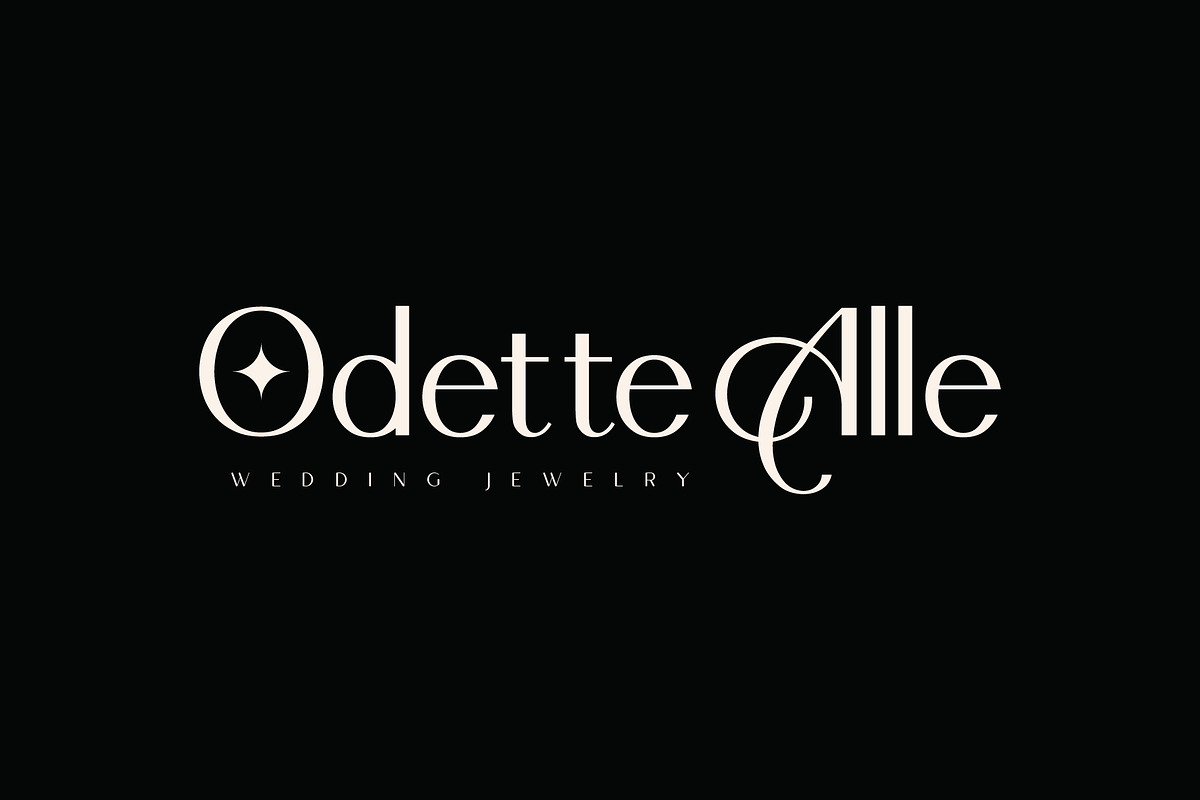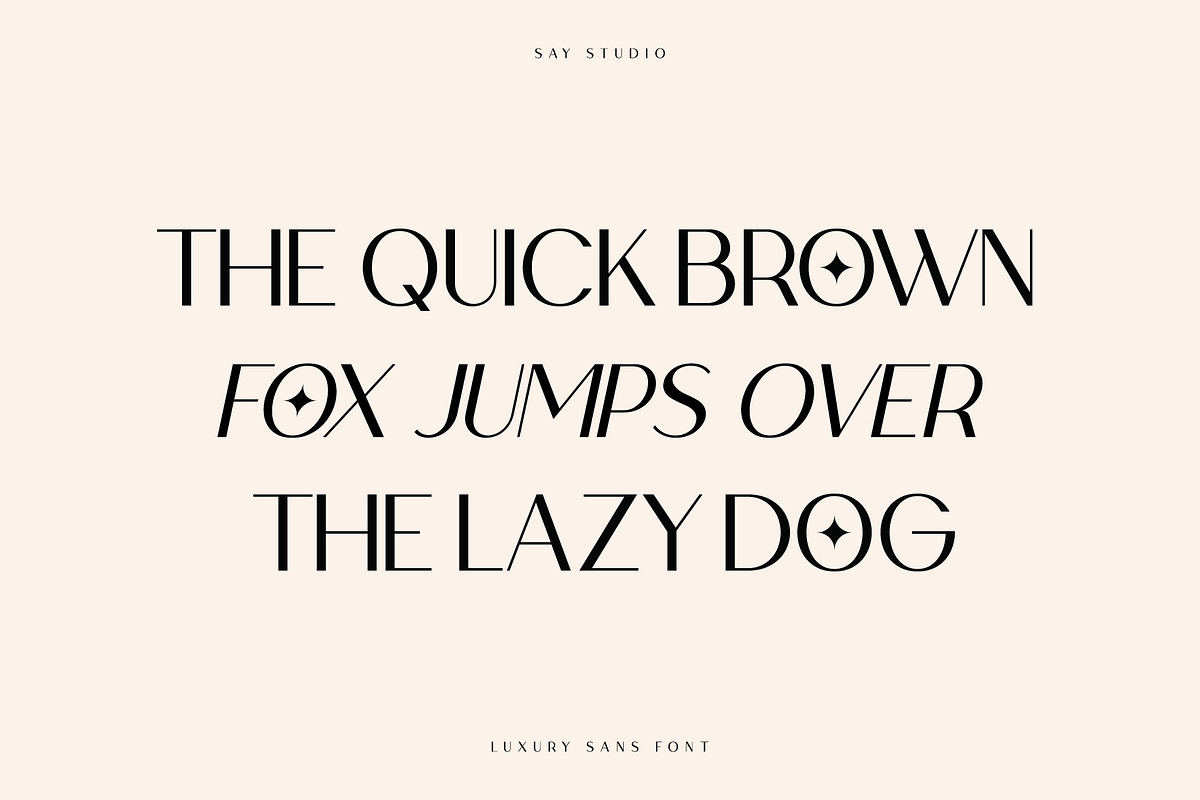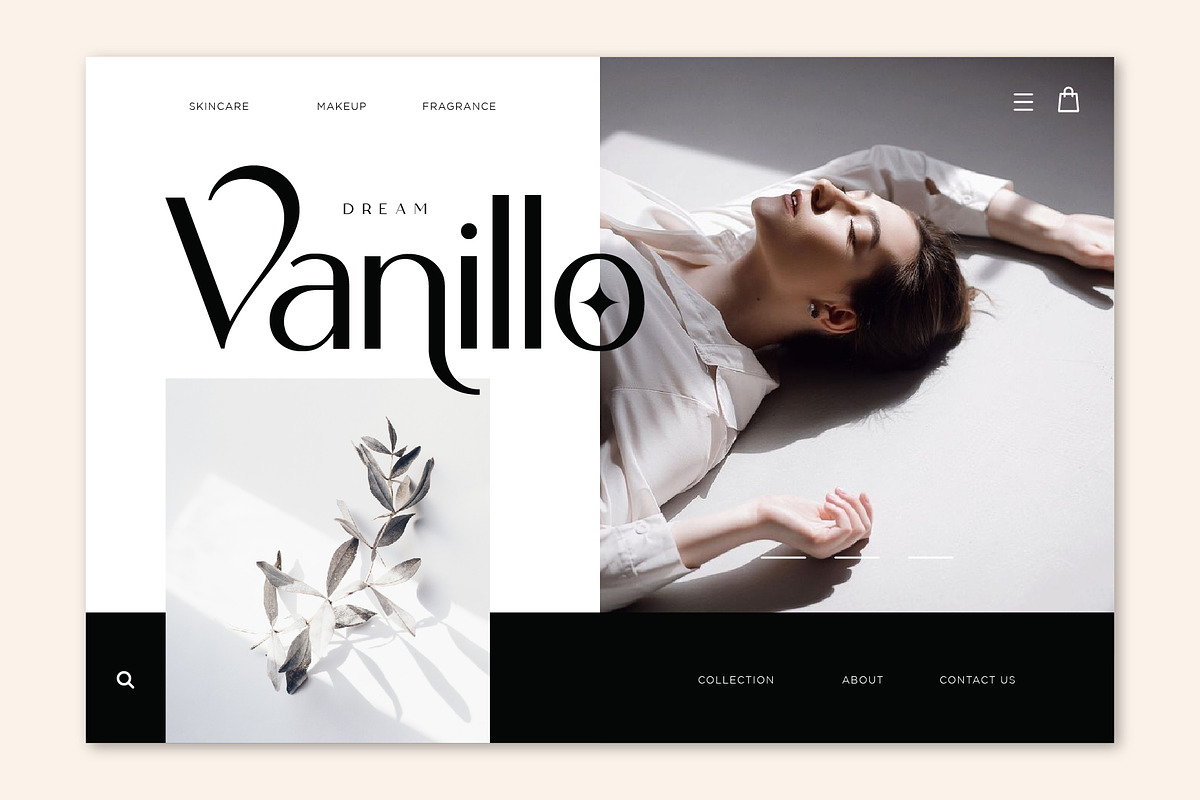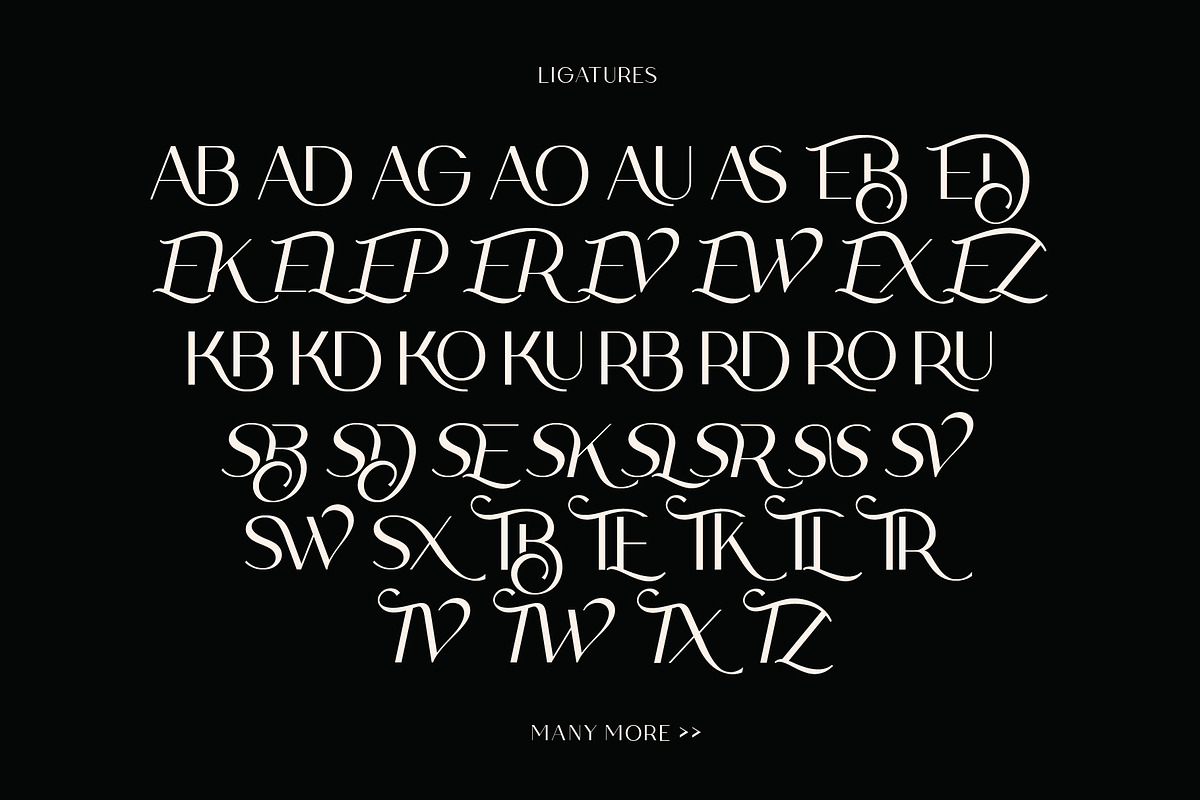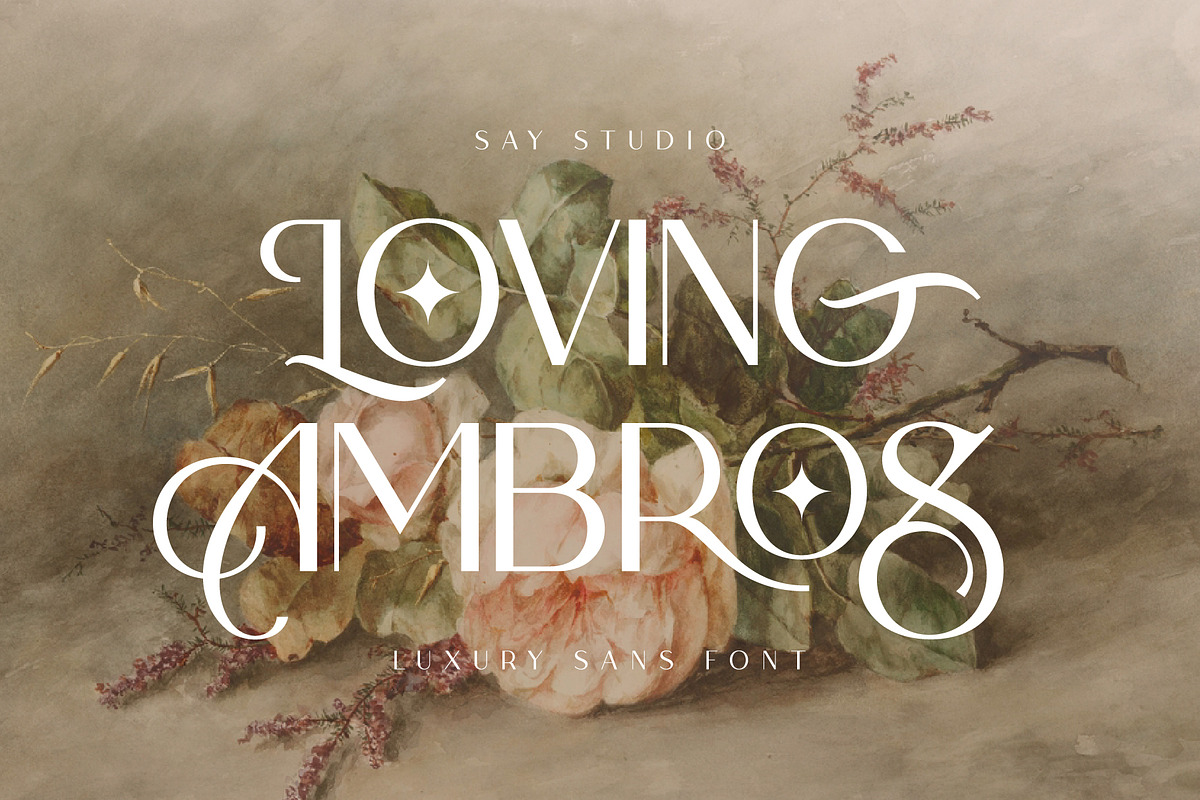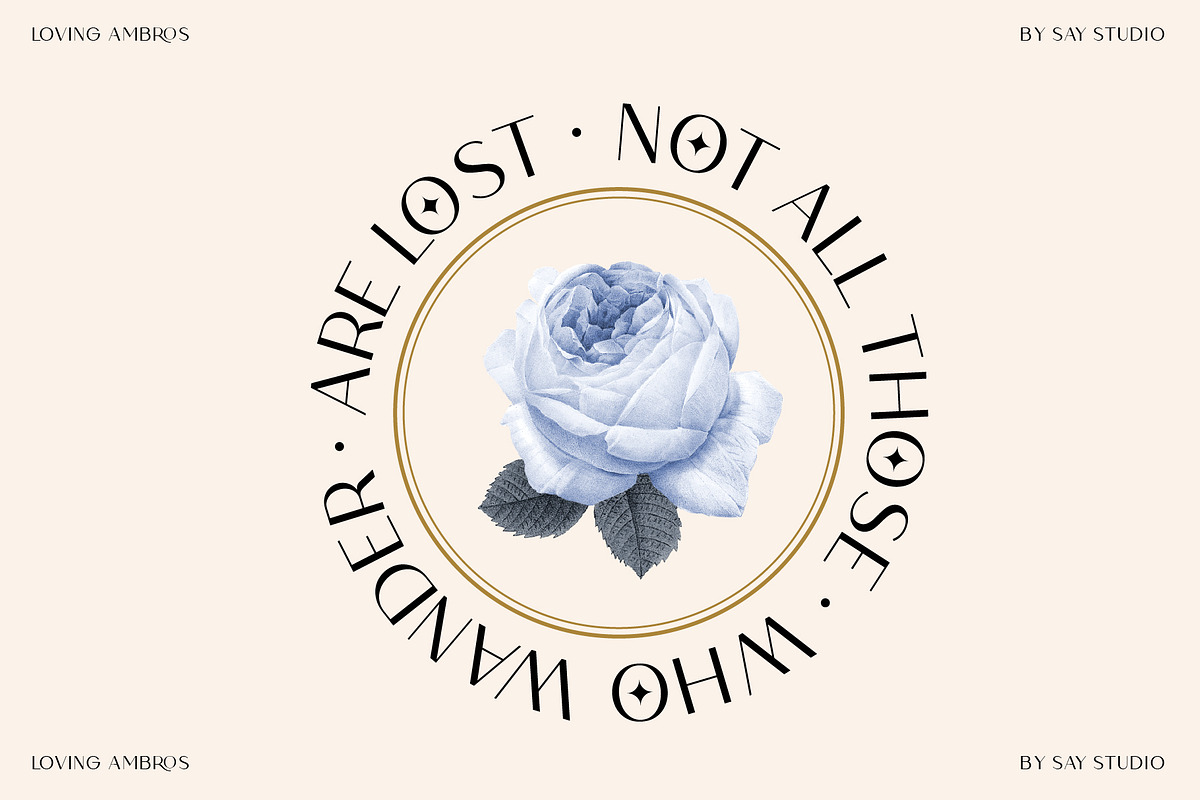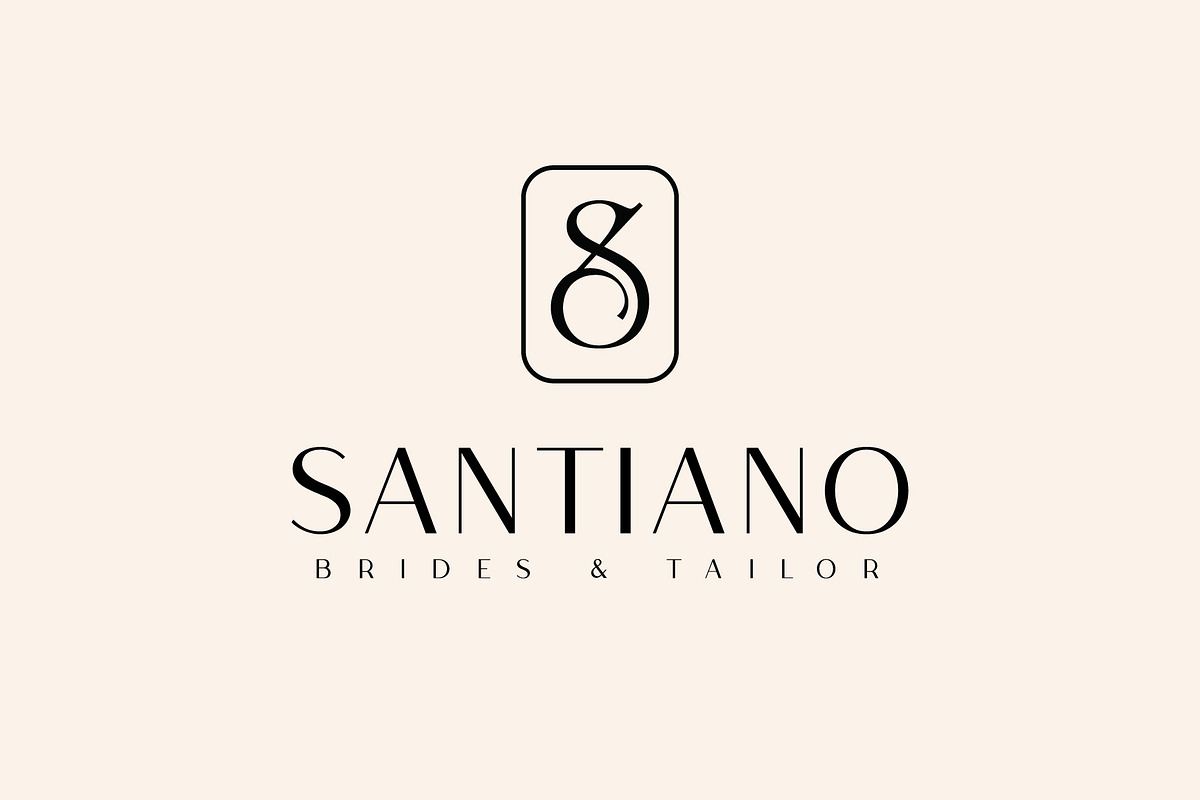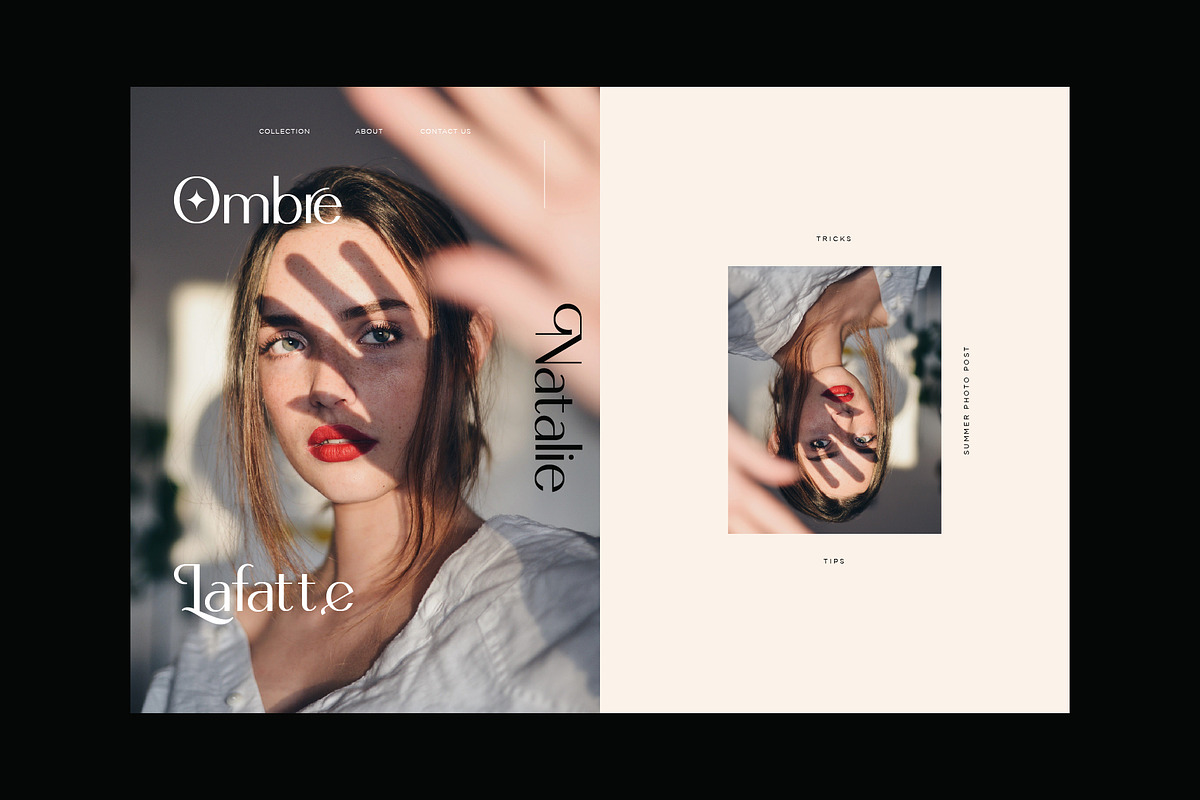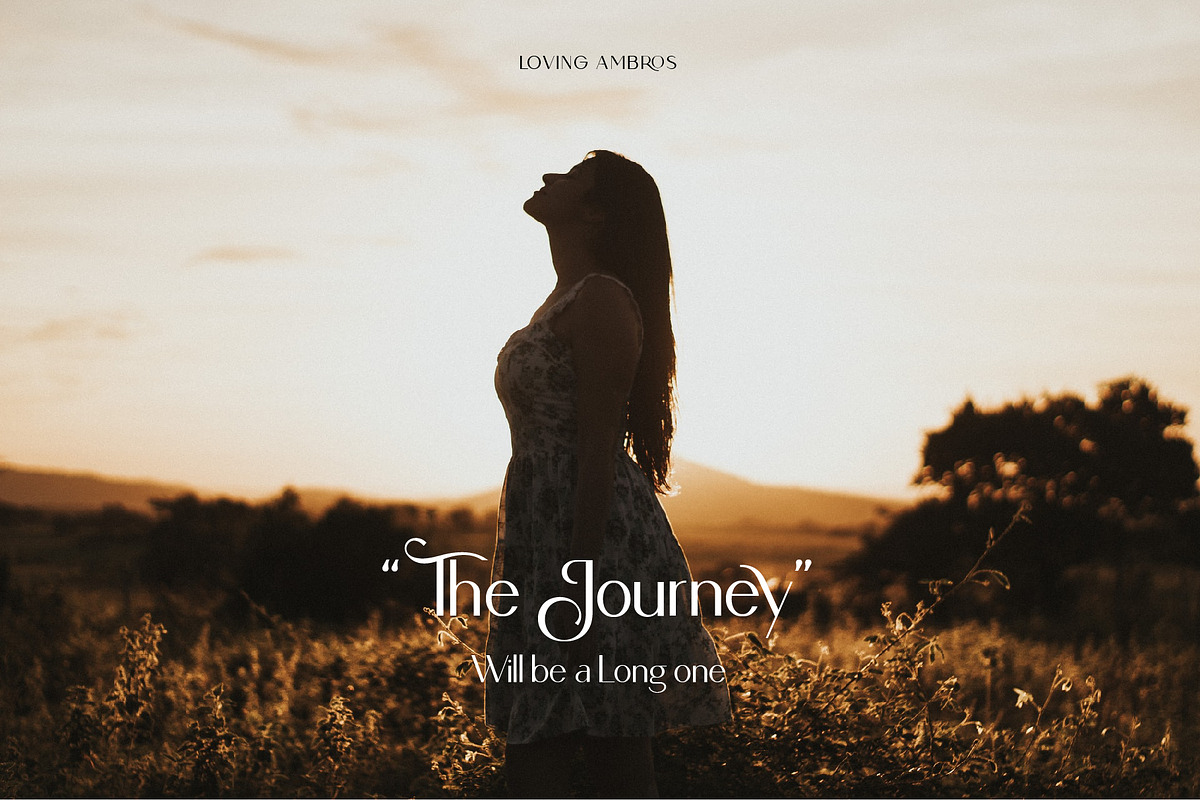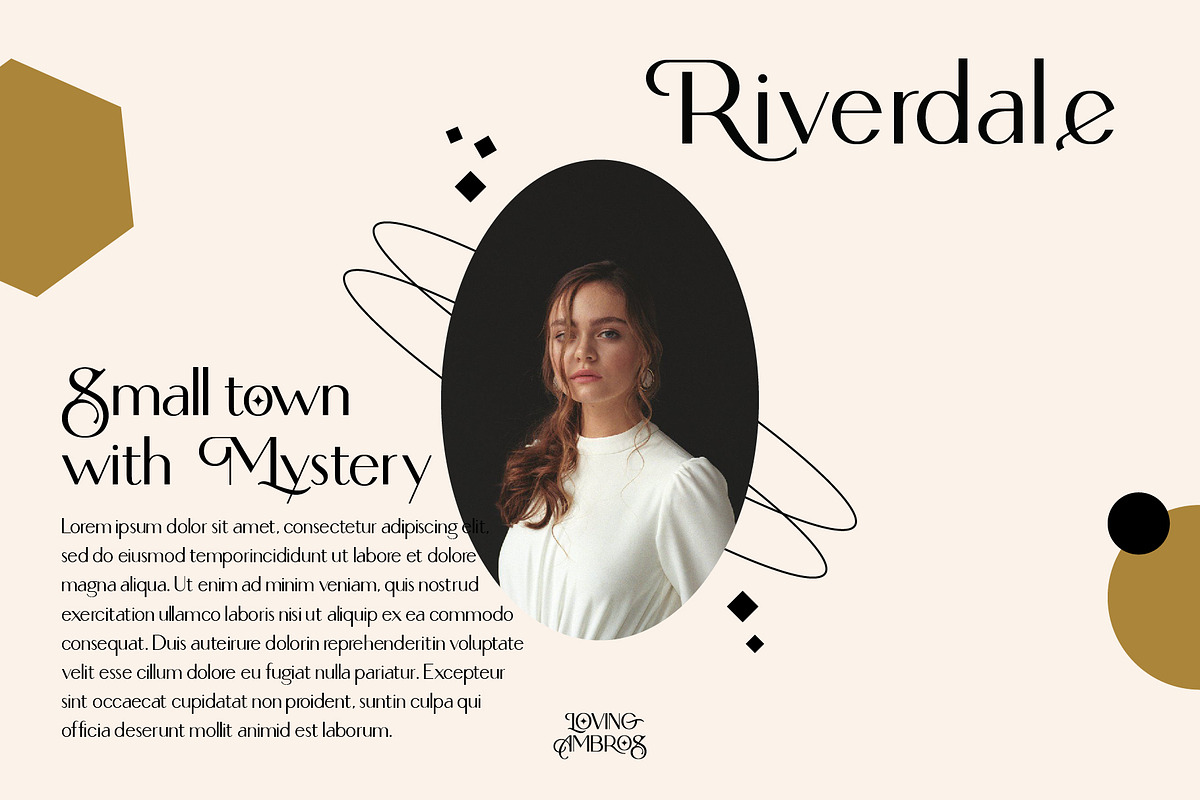
Loving Ambros
Introducing Loving Ambros - Luxury Typeface
Loving Ambros is a Luxury beautiful typeface and inspiring mix of classic calligraphy with 50 unique alternates and 69 unique ligatures. come with 2 versions regular & italic.
Loving Ambros is made mainly for headlines, titles, and other short texts and is well-suited for advertising, vintage mood board, branding, logotypes, packaging, titles, editorial design, modern logos, websites, social media quotes, wedding branding, modern and vintage design. These a fonts are perfect for designs with the concept of elegant, luxury, romance, fashion and so on.